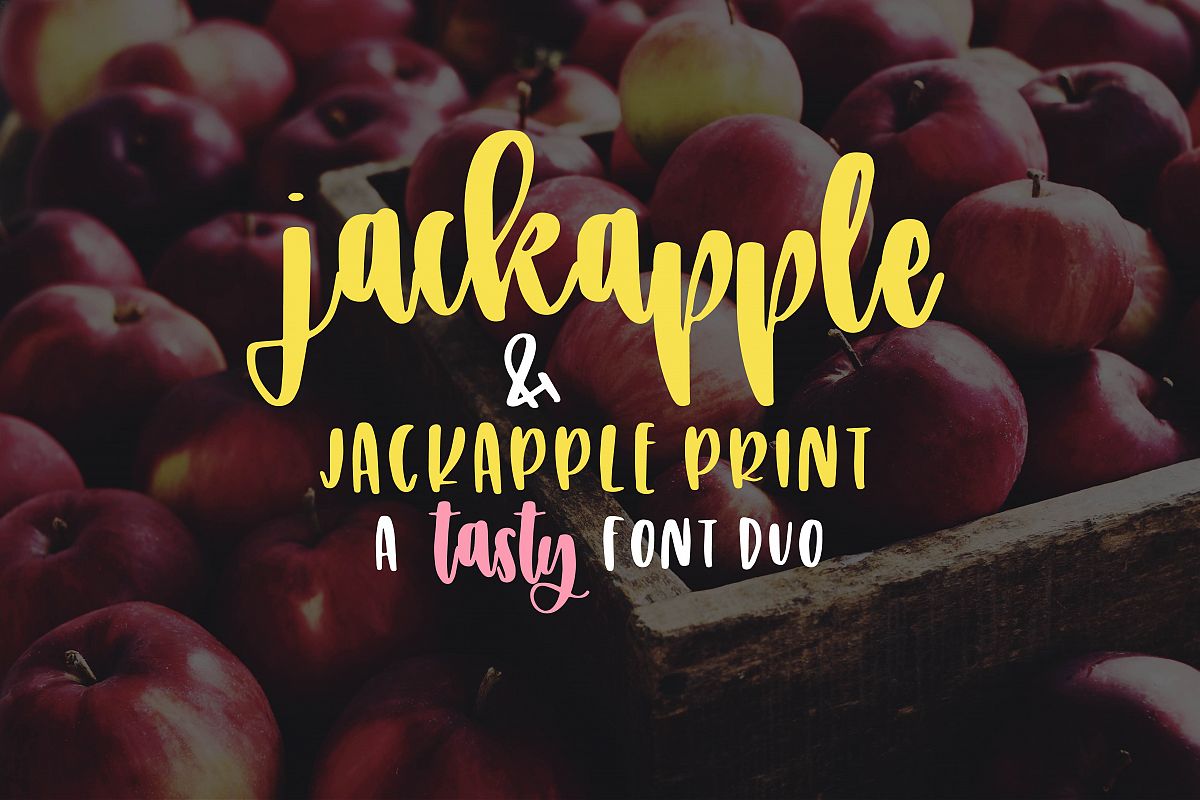
JackApple - A Tasty Font Duo
JackApple is a tasty font duo that includes a chunky upright script PLUS an all uppercase sans serif hand written type to coordinate!